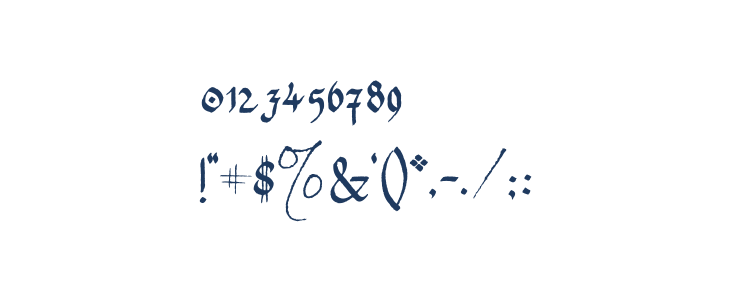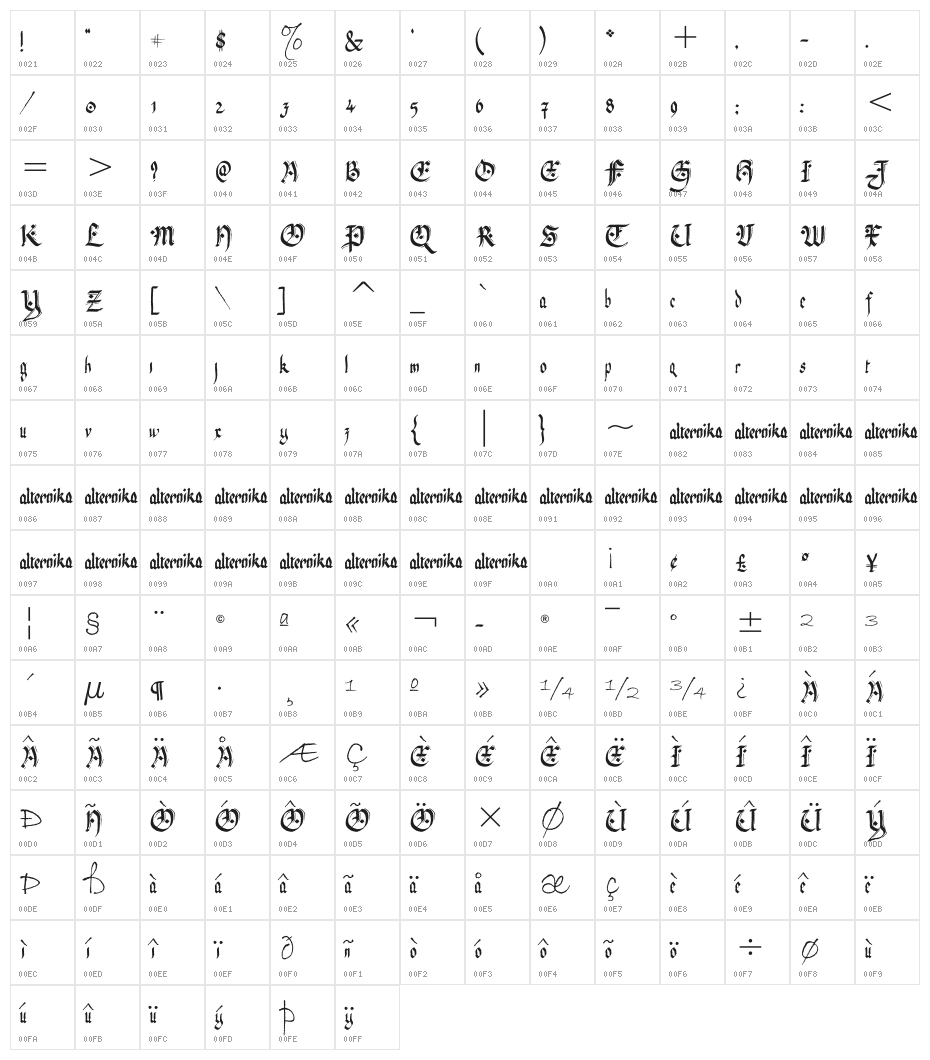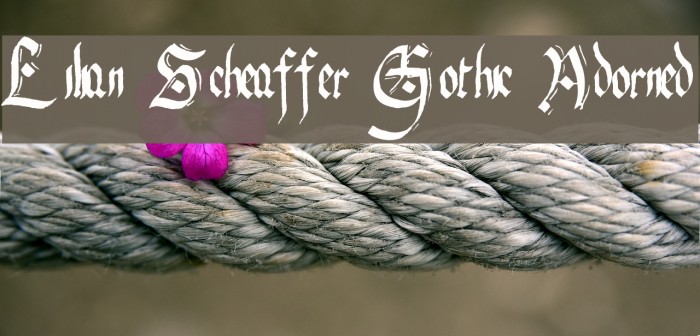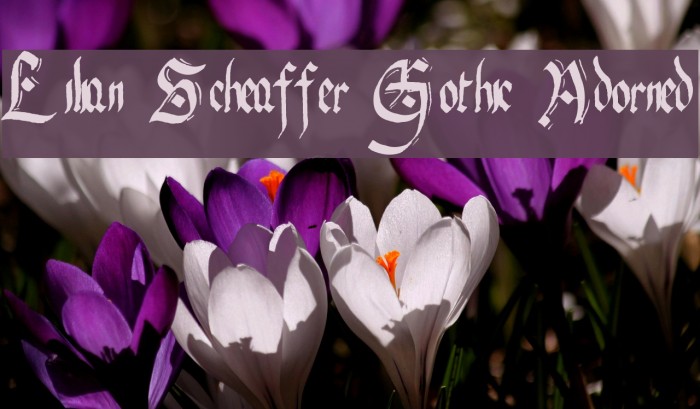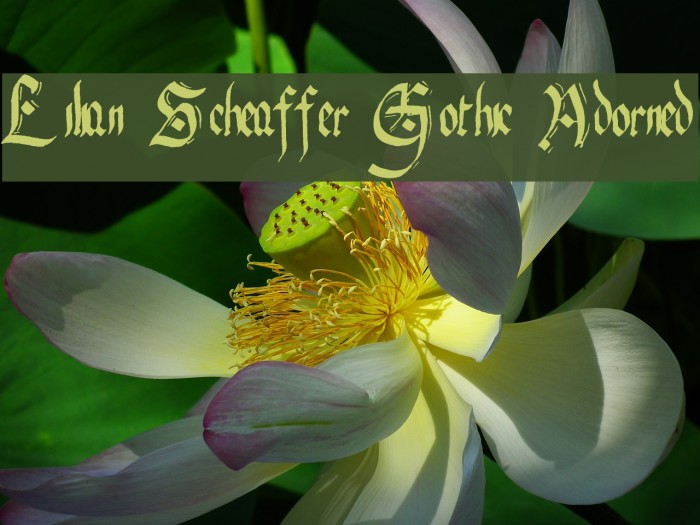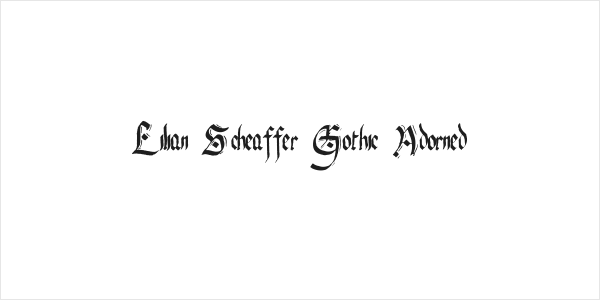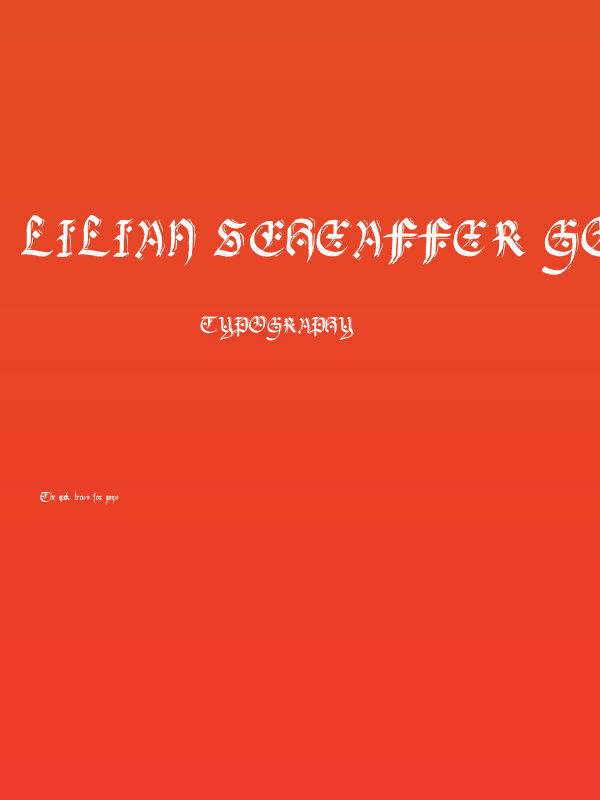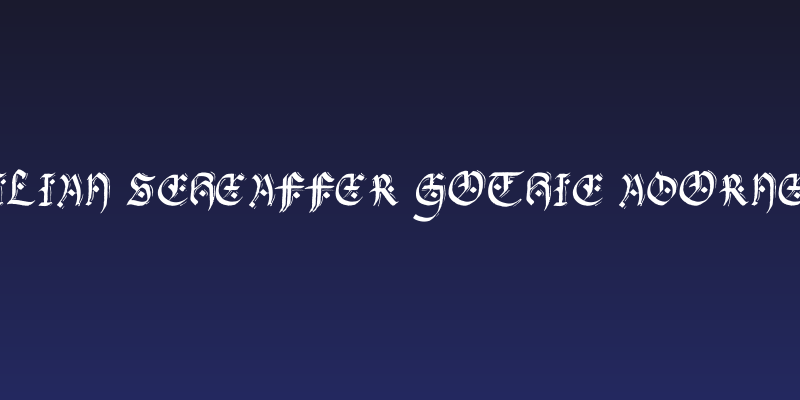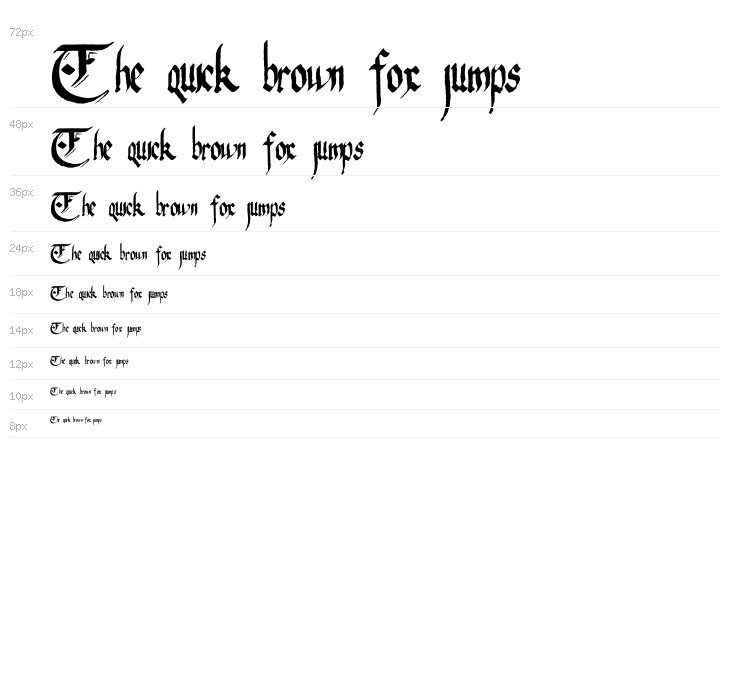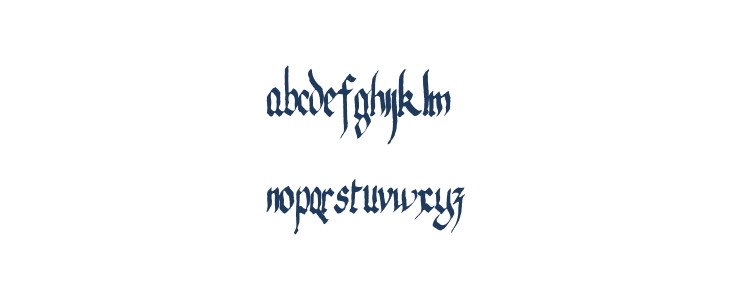
Lilian Scheaffer Gothic Adorned Font
Lilian Scheaffer Gothic Adorned Description
This font features a distinct Gothic style with ornate and intricate details. The uppercase letters are characterized by sharp, angular lines and elaborate flourishes, giving them a dramatic and historical appearance. The lowercase letters maintain the Gothic aesthetic with a slightly more condensed form, yet they retain the same level of detail and complexity. The numerals are consistent with the overall style, featuring similar decorative elements. Special characters are uniquely styled, adding to the font's ornate and embellished look. This font is perfect for projects that require a medieval or historical theme, offering a sense of grandeur and elegance.
| Proposed Projects | Ideal for historical themed designs, book covers, posters, and branding that requires a medieval or elegant touch. |